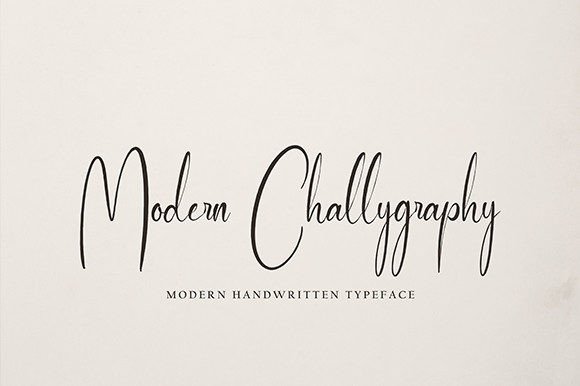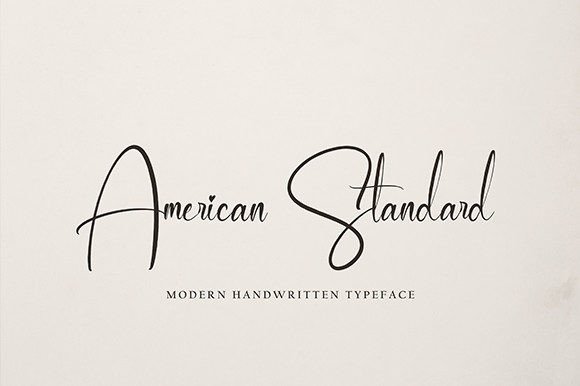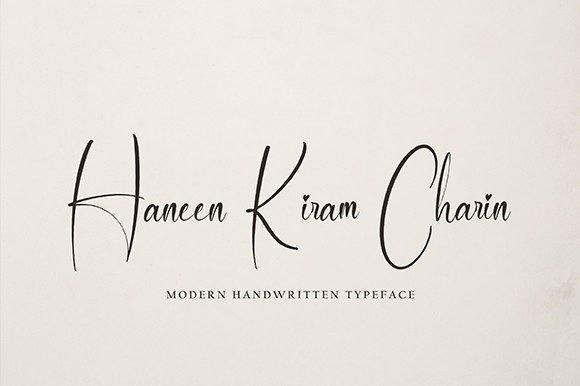
Introduction to Seabright Font
Do you ever get that rush of excitement when a creative project starts to come together? The spark of inspiration, the hum of the computer, and the endless possibilities – it’s a magical feeling that’s hard to match. For designers, it’s that moment when the perfect font brings everything together, elevating the project from good to great. And, trust us, the Seabright Font is one of those game-changers.
| 👤 Author | Pineungtype & Missinklab |
With its elegant, high-quality design, the Seabright Font is a must-have in any designer’s toolkit. Whether you’re working on a free download for Instagram or crafting a calligraphy script for a DIY project, this font is sure to add a touch of sophistication and style. And the best part? Its transparent background makes it easy to layer and customize to suit your needs.
Key Features of Seabright Font
- High-quality, professional design resource ideal for creative projects
- Features a transparent background, making it easy to customize and overlay on different designs
- Unique, modern design with clean lines and subtle flair, perfect for adding a touch of sophistication to any project
- Great for use in logos, branding, and other creative projects where a high-quality, custom font is desired
Honest Review: Seabright Font
I recently stumbled upon the Seabright Font and was excited to dive in and see what it had to offer. As a designer, I’m always on the lookout for high-quality design resources that can elevate my creative project.
One of the things that immediately caught my eye was the transparent background, which makes it incredibly easy to use in a variety of design scenarios. This is a huge plus, especially when working with complex layouts.
Here are some of the things that work well with the Seabright Font: ✨
- High-quality typography: The font is crisp and clear, making it perfect for body text or headings.
- Transparent background: As I mentioned earlier, this makes it super easy to use in different design scenarios.
However, there are a few limitations to keep in mind: ⚠️
- Limited character set: The font doesn’t include a full character set, which may limit its use in certain languages.
- No bold or italic weights: If you need to use bold or italic text, you may need to look elsewhere.
Overall, I’m impressed with the Seabright Font and would definitely recommend it to designers looking for a high-quality, free design resource. Just be aware of the limitations and plan accordingly.
Tips for Getting the Most Out of the Seabright Font
To get the most out of the Seabright Font, try using it with a transparent background to create a clean and modern look. You can also experiment with different font sizes and styles to add visual interest to your designs.
The Seabright Font is perfect for a variety of creative projects, including:
- Business cards and stationery
- Print design and publishing